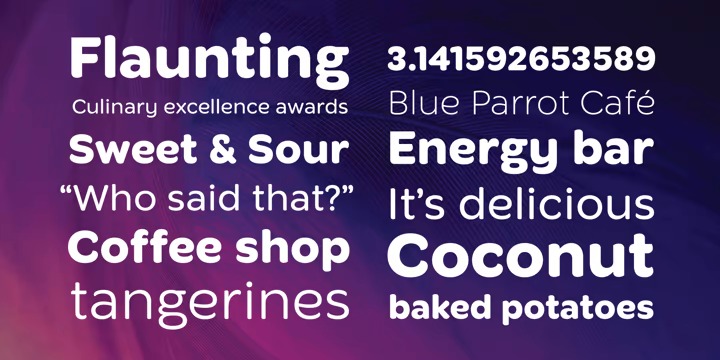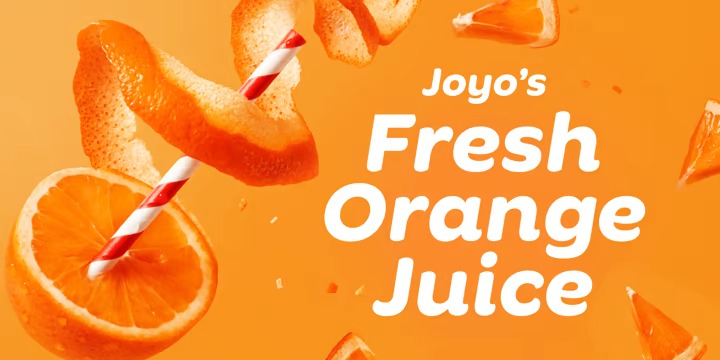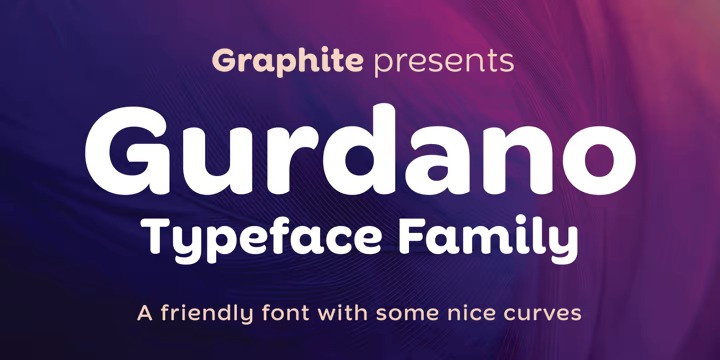
Gurdano Font Family
Gurdano Sans Serif Font
This is a sans serif font family, a text & display family suitable for any purpose, any media, any size. Based on a geometric structure, it has a distinct and expressive look, making it an excellent choice for headlines, logotypes, branding, packaging, books, signage, posters and billboards.
A prominent x-height and good legibility makes it effective at almost any point size for both print and screen. Stylistic alternates for G, K, R, a, d, g, h, k, m, n, q and v make it a dynamic and versatile typeface. Gurdano comes in 7 weights, from a delicate extra-light to a strong black, with matching true italics.